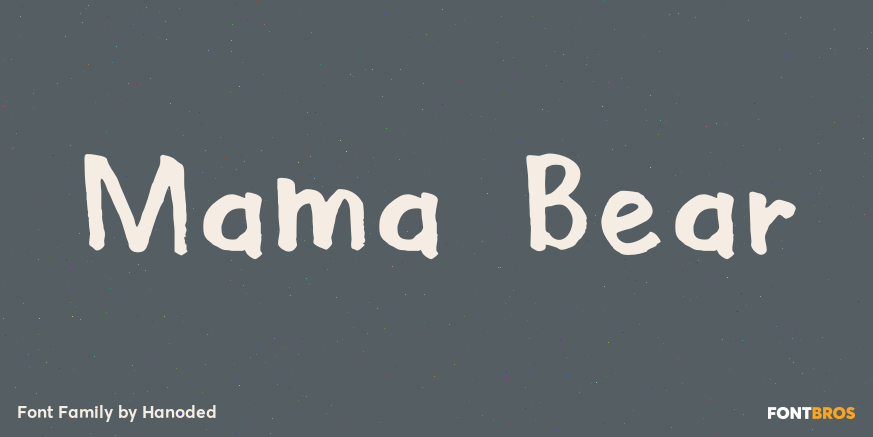
Mama Bear
About Mama Bear
Mama Bear is a playful, neat, children\’s book typeface. It is cute and happy, very legible and comes with extensive language support, including the \’schwa? glyph found in a handful of languages. Mama Bear was inspired by my 16 month old son, who loves…